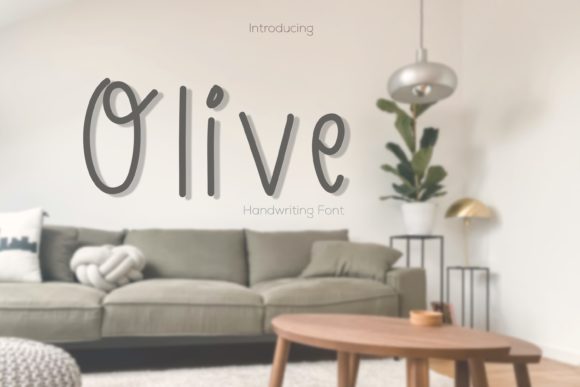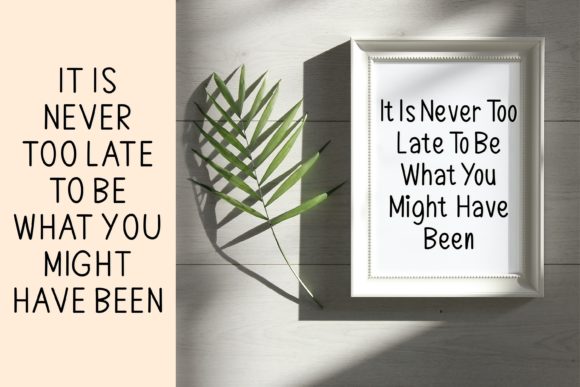
About Olive Font
Olive is a cute and trendy handwritten font. Whether you’re looking for fonts for your Instagram posts or calligraphy scripts for DIY projects, this font is what you’re looking for! Add it and watch your creativity reach new levels.